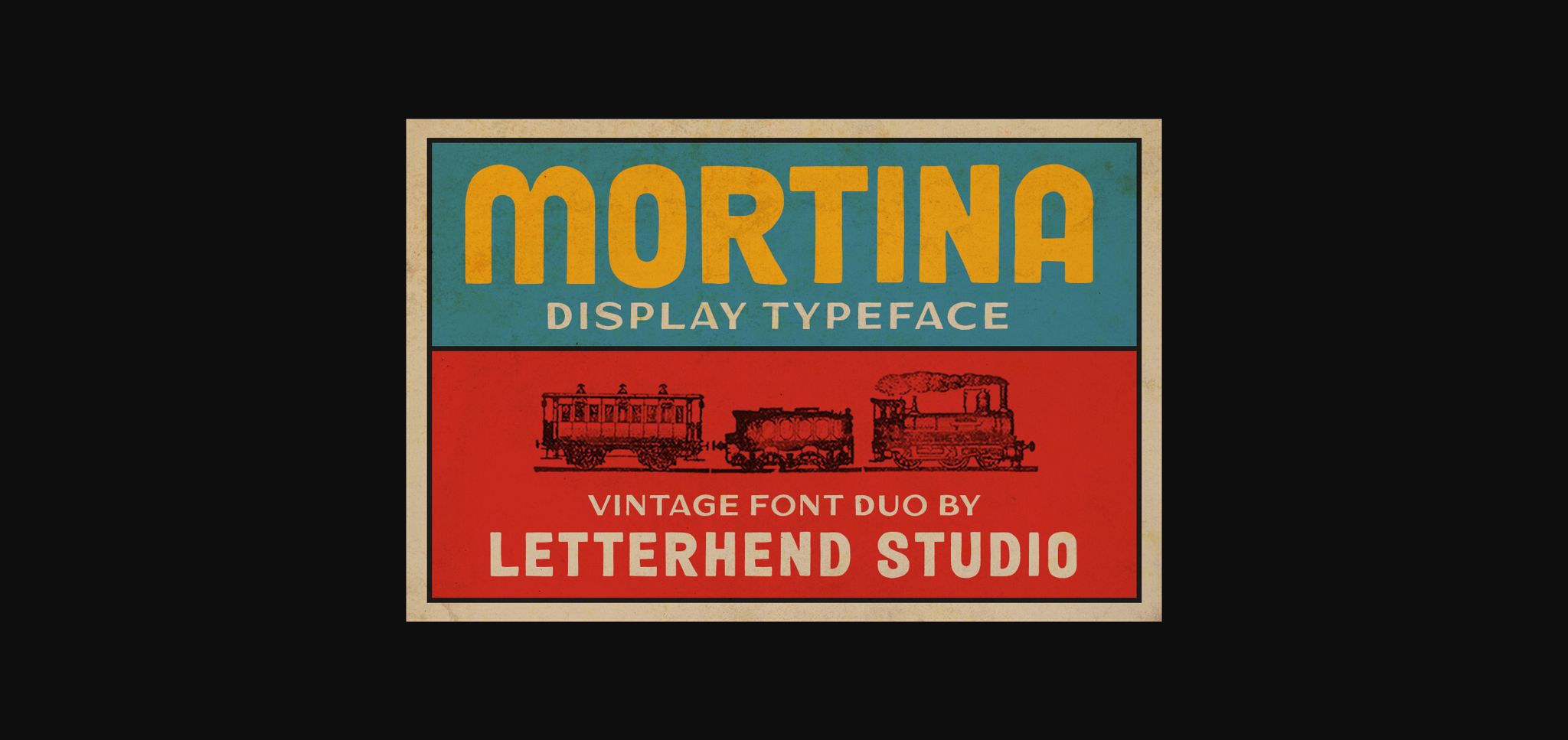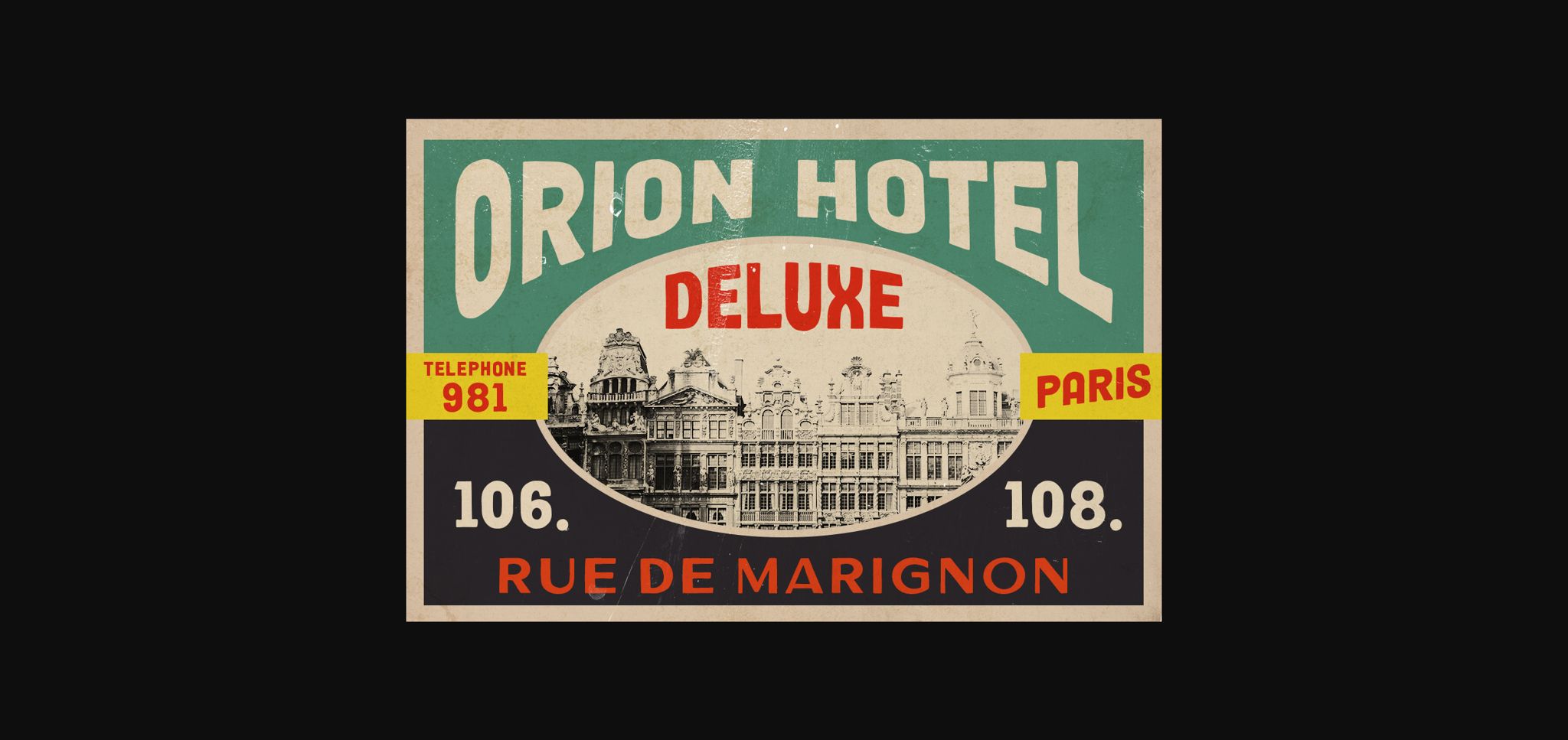
About Mortina Font
Mortina is a vintage sans serif font duo. Inspired by 50s and 60s, this font is made to bring back the good ol’ days. This type of font is perfectly made to be applied especially in logos, headlines or any type of advertising design.